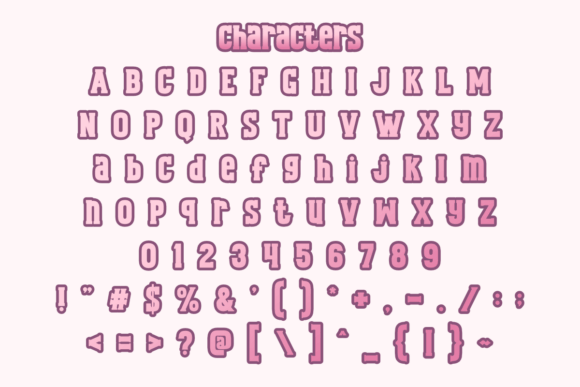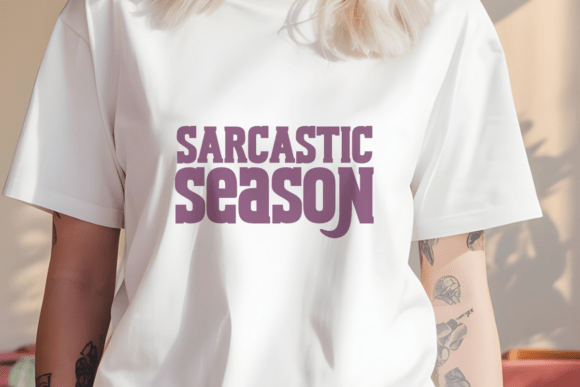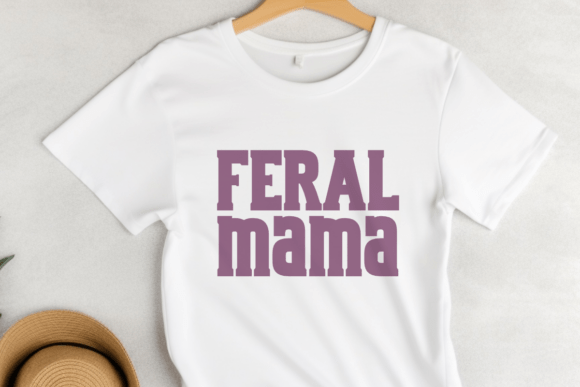
Introduction to Funny Ducks Font
Funny Ducks is a bold, playful display font with a cheeky attitude and a splash of sarcasm.
Its fun and chunky letterforms make it ideal for sassy quotes, sarcastic mugs, humorous t-shirts, and quirky tote bags Whether you’re designing for your print-on-demand store, selling funny SVGs on Etsy, or creating eye-catching Cricut and sublimation projects, this font adds that perfect touch of bold sarcasm with a soft and stylish twist.
Funny Ducks Font offers exceptional quality and versatility, making it a valuable addition to your design toolkit. Whether you’re creating for personal projects or commercial use, Funny Ducks Font delivers professional results.